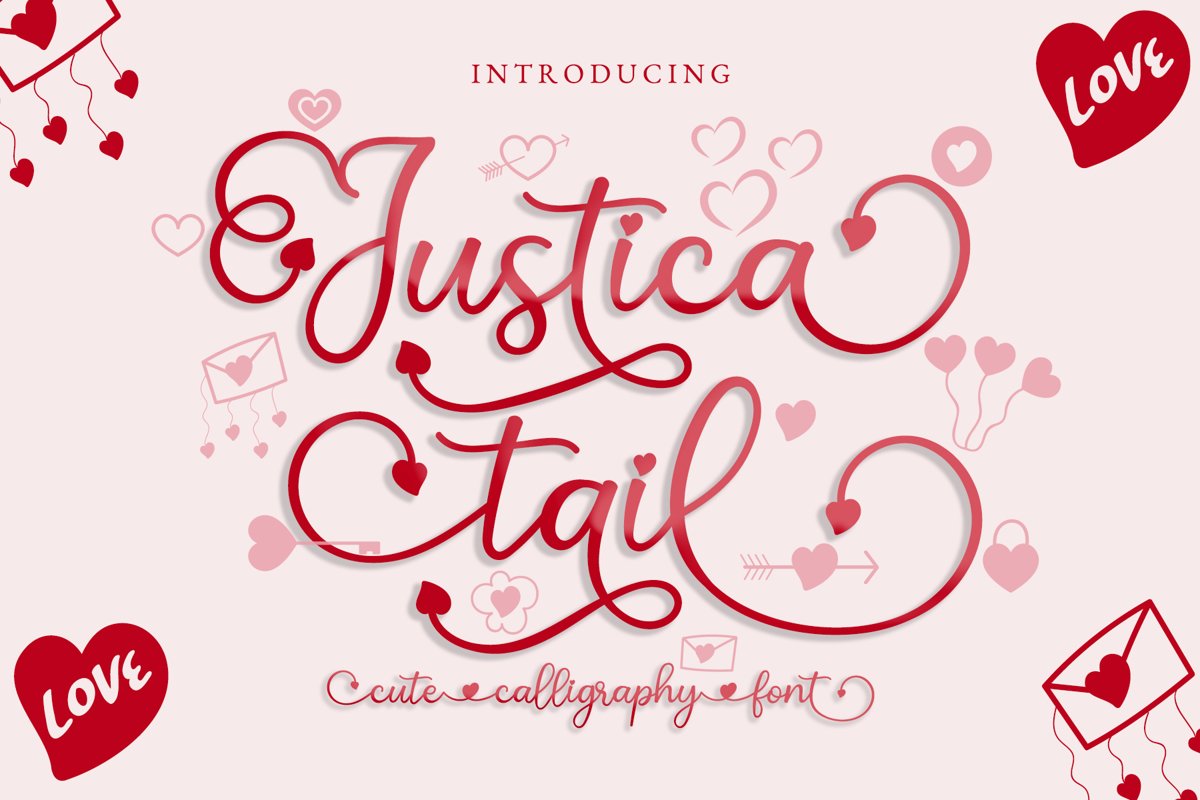
Justica Tail - Heart Connection Font Script
Justica Tail is cute and casual calligraphy font. It has 'heart tail' to make the design looks more lovely and more beautiful.
Justica Tail can be used for wide ranges of application, such as wedding design, logo, invitations, social media posts, and others.
• Tons of Glyphs
• PUA-Encoded additional character with love accent
• Multilingual glyphs.